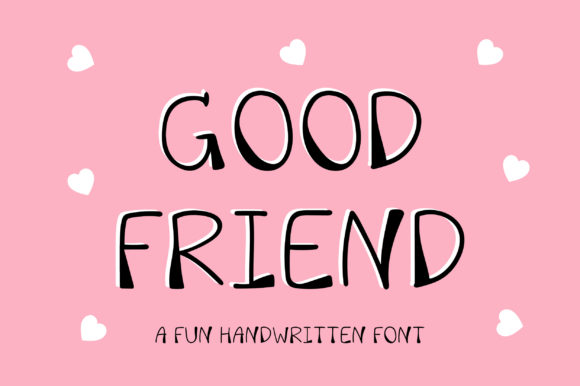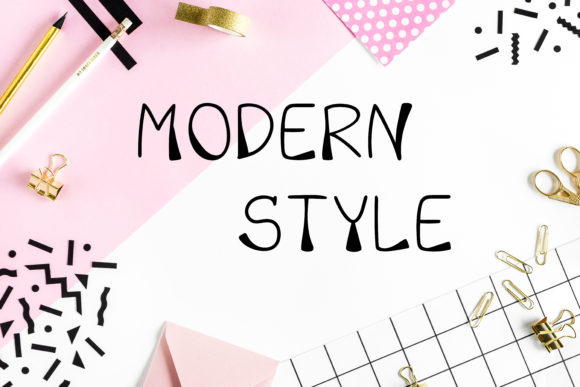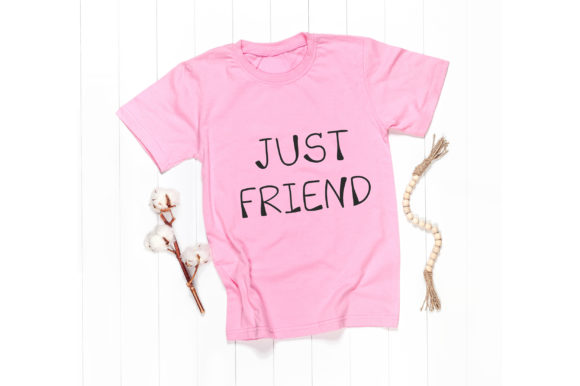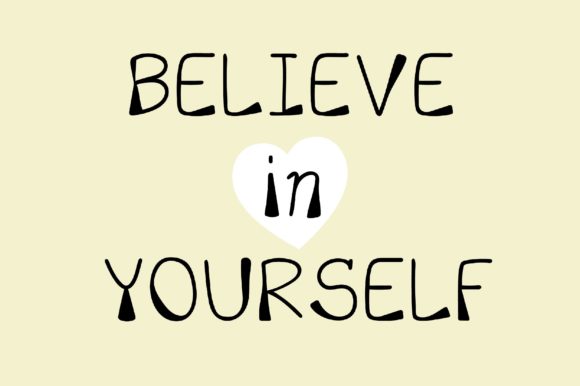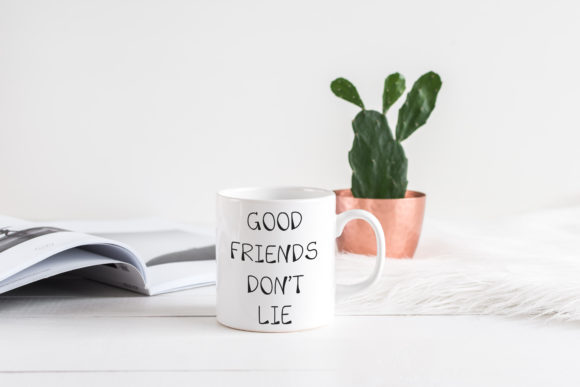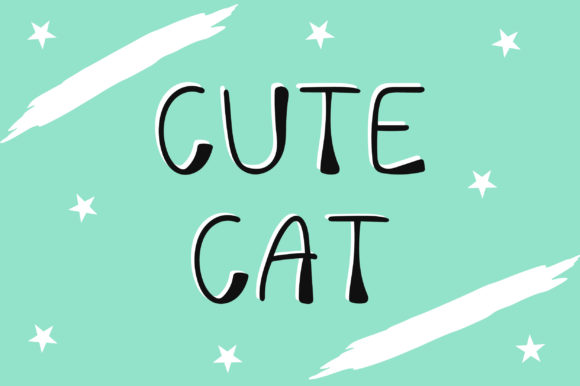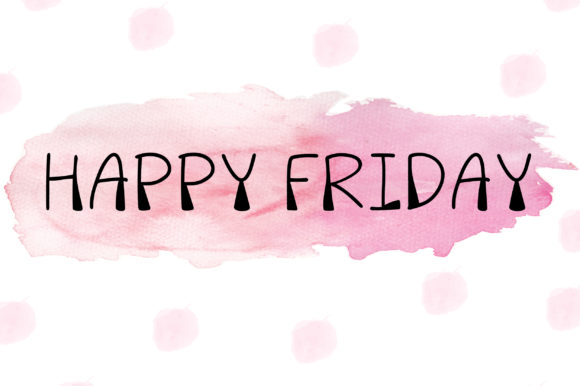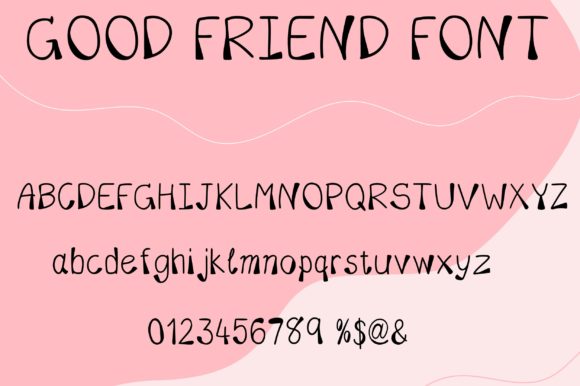
Good Friend Font
About Good Friend Font
Good Friend is a relaxed and cheerful handwritten font. Use this gorgeous and unique font to bring any DIY project to life!